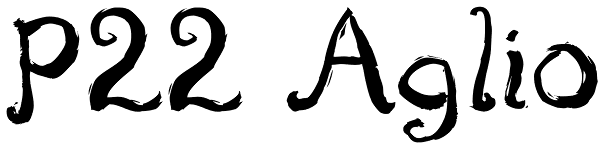
P22 Aglio
Aglio was developed from letterforms originally painted by muralist/artist Tanya Zabinski. Aglio maintains the character of bold brushstrokes with random gaps and marks, and there are flourishes of articulated endstrokes. This typeface merges the...